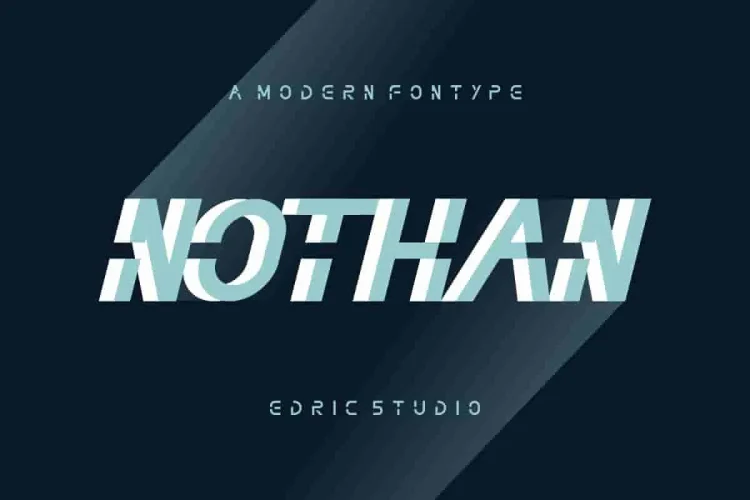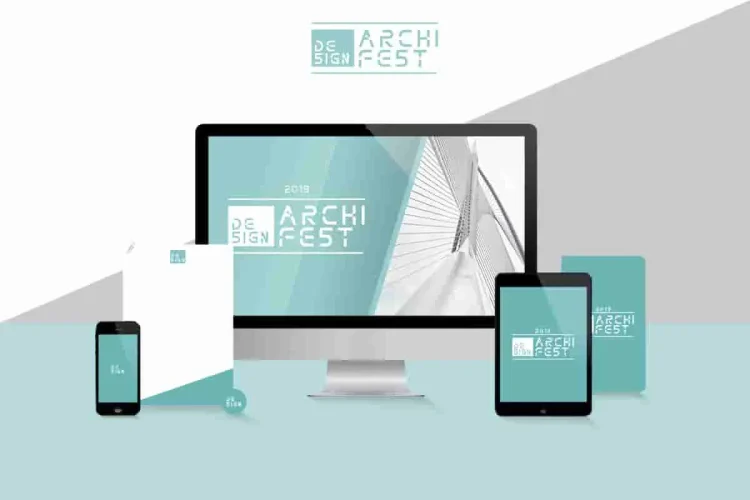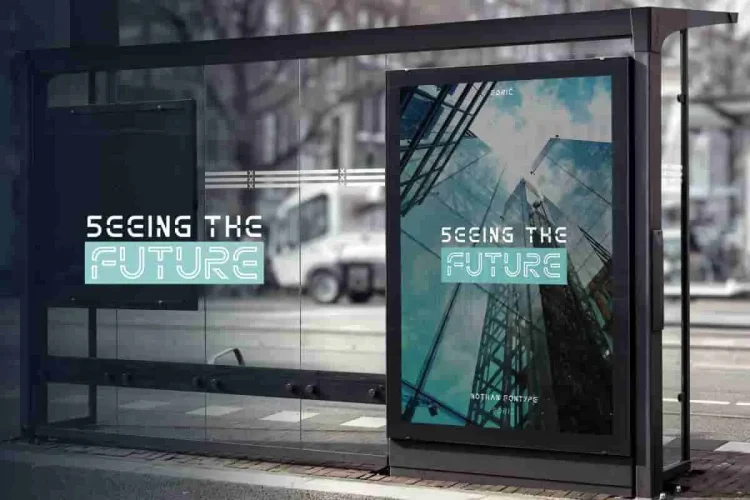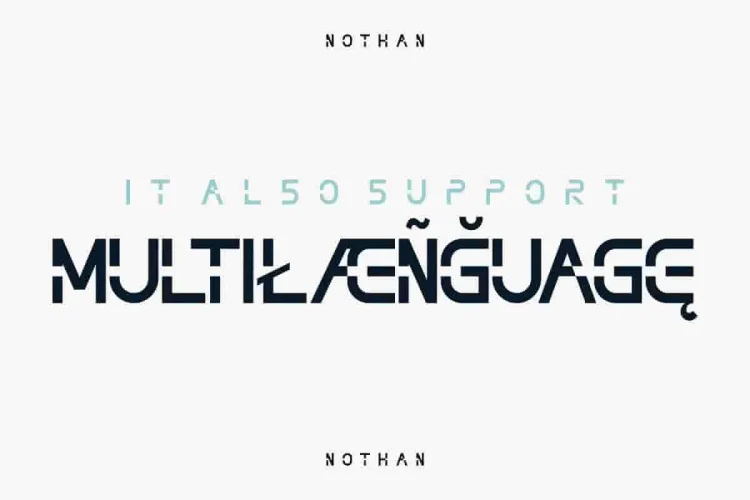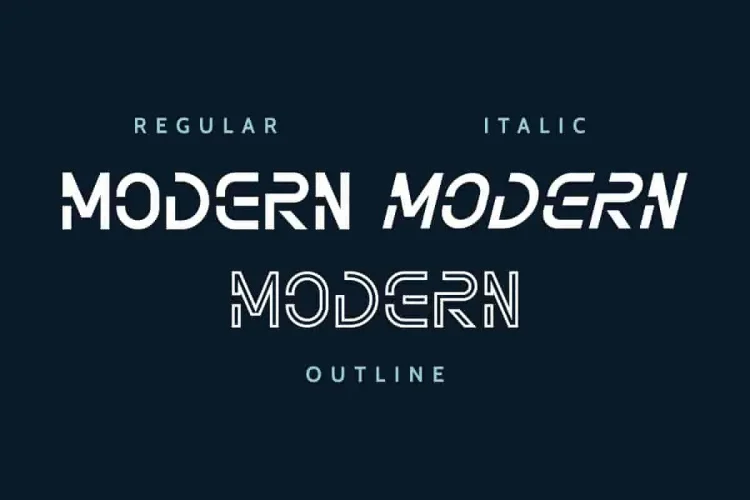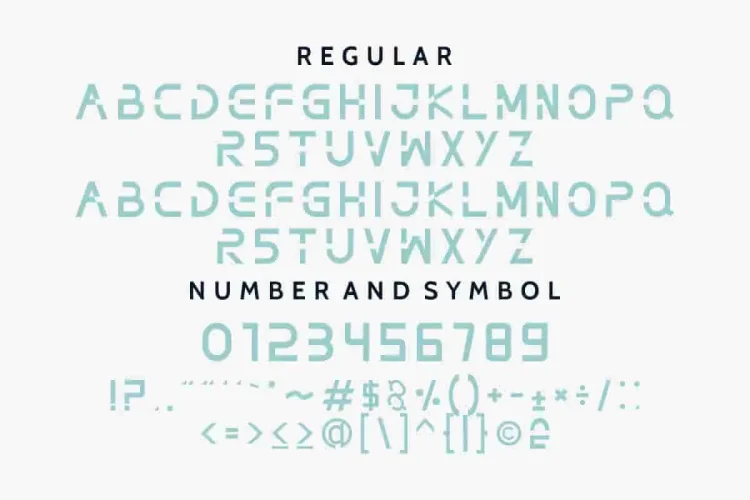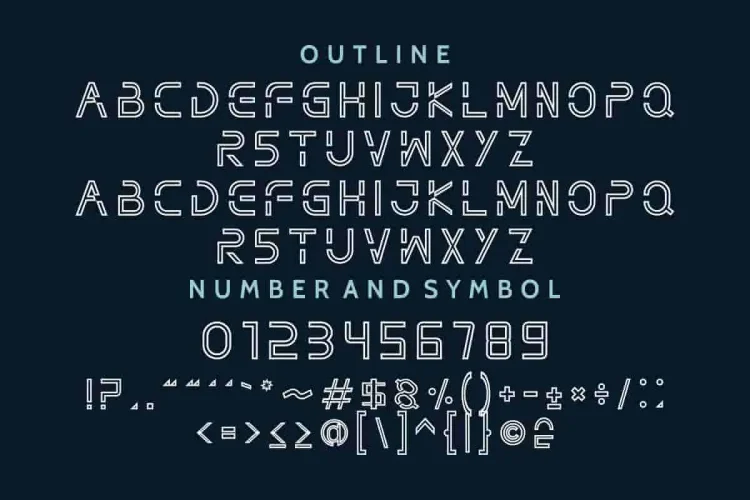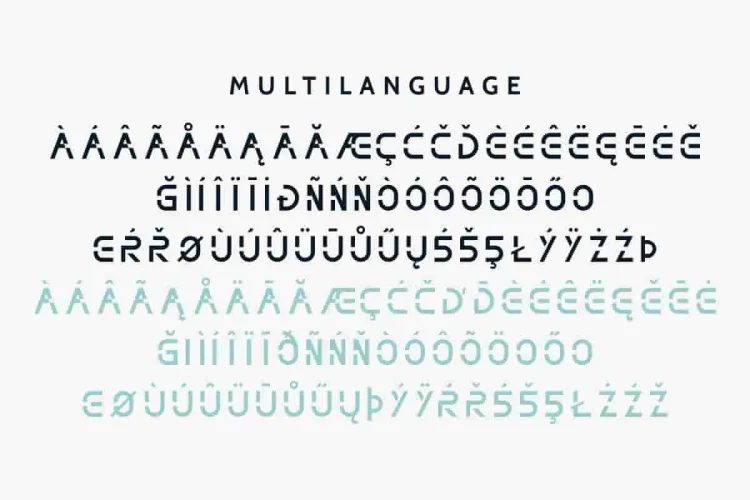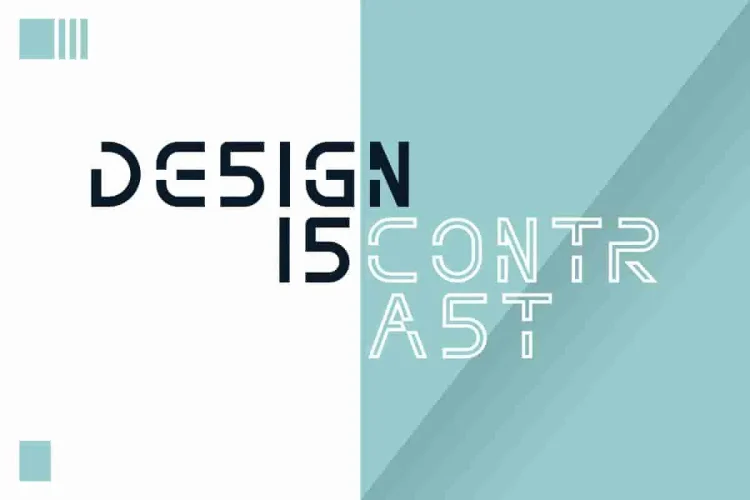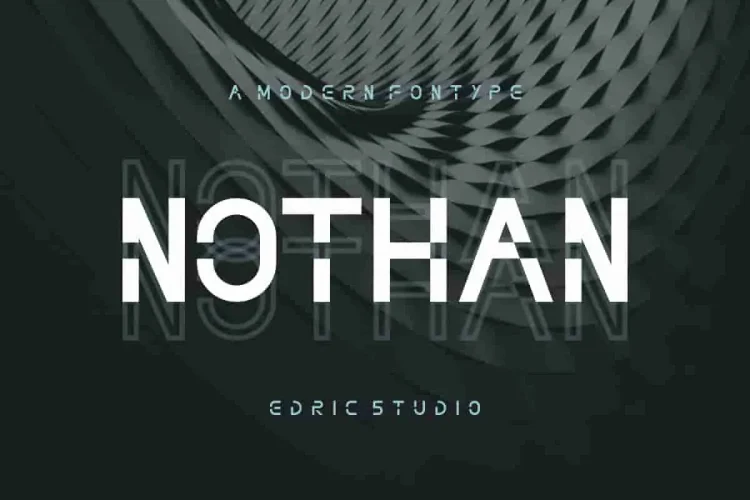
NOTHAN Futuristic Techno Modern Font
We’re excited to introduce our newest font NOTHAN! This is a display decorative futuristic techno modern font. Whether you’re creating a brand identity, a UI/UX interface, a sci-fi poster, or a cutting-edge logo, NOTHAN helps push creative boundaries. Moreover, it gives your design a bold and futuristic voice.
One of the best features of NOTHAN is its three distinct styles.
1. Regular – This is the core version of NOTHAN.
With a strong geometric structure and wide letterforms, it feels bold and contemporary. It’s great for headlines, branding, and strong statements.
2. Italic– This version adds movement and energy to your text.
It brings a sleek, streamlined feel that works well for dynamic compositions. In particular, use it to emphasize content or create futuristic, racing-style visuals.
3. Outline – This version uses outlined letterforms to create a sleek, high-tech appearance.
Outline uses slim letterforms that create a sleek, high-tech aesthetic. As a result, it’s ideal for layering or pairing with the solid styles to produce depth and contrast in your typography.
In addition to its style variety, NOTHAN also supports multiple languages, making it perfect for global branding and design work. This makes it a perfect choice for international branding or global design projects.
Whether you’re working in technology, gaming, digital art, or fashion, NOTHAN adapts well to any modern aesthetic. Its sharp, futuristic look adds confidence and precision to every visual project. You can also mix and match styles to build custom headlines, highlight product names, or bring life to web banners and posters.
So, if you’re looking for a font that’s bold, flexible, and future-ready, NOTHAN is your perfect match.